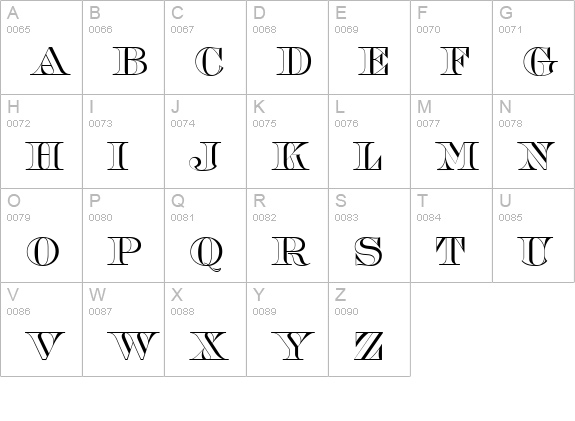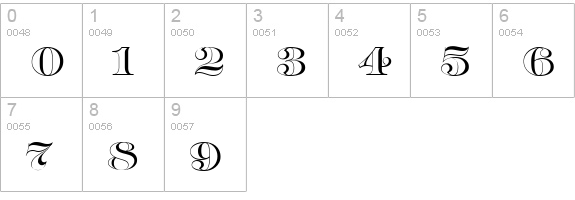
CgBarclayOutline Font Details
CgBarclayOutline is a modern and sleek font that exudes sophistication and style. With its clean lines and unique design, this font is perfect for projects that require a touch of elegance. The outline style adds a contemporary edge, making it stand out from the crowd. Best of all, CgBarclayOutline is available for free download at FontsMarket.com. This means you can add this stunning font to your collection without breaking the bank. Whether you're working on a branding project, website design, or any other creative endeavor, CgBarclayOutline is sure to make a statement. Download it today and elevate your designs with this versatile and eye-catching font.